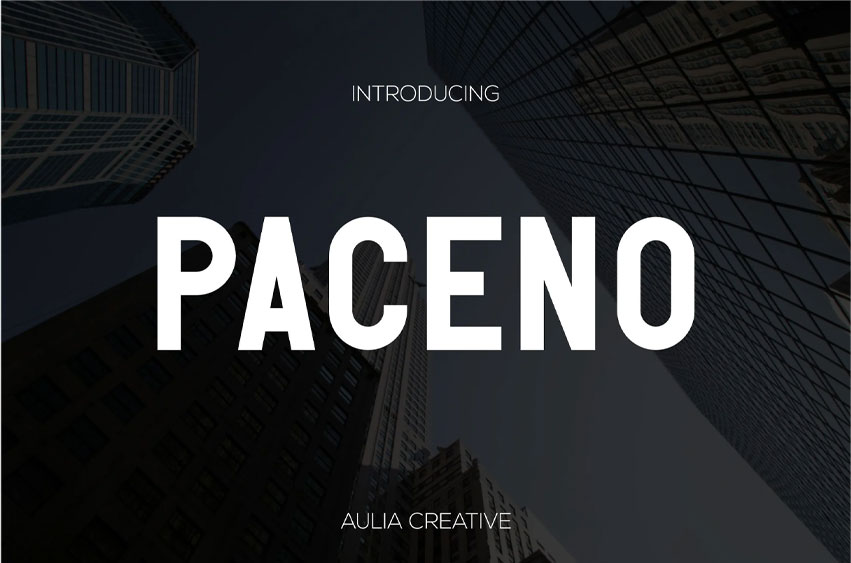
Paceno Font
Paceno Font Sans Serif Display Logo Font is and awesome and authentic display font.
This font is here to enhance the quality of your designs.